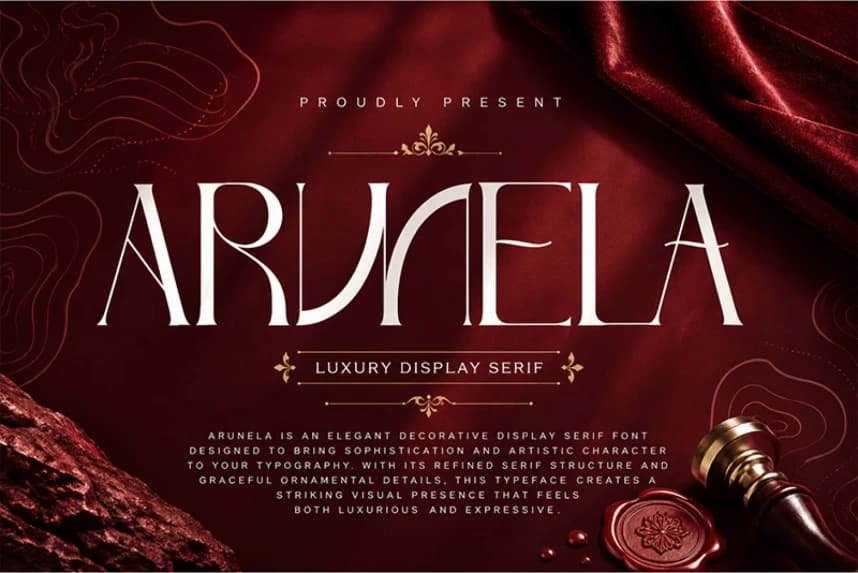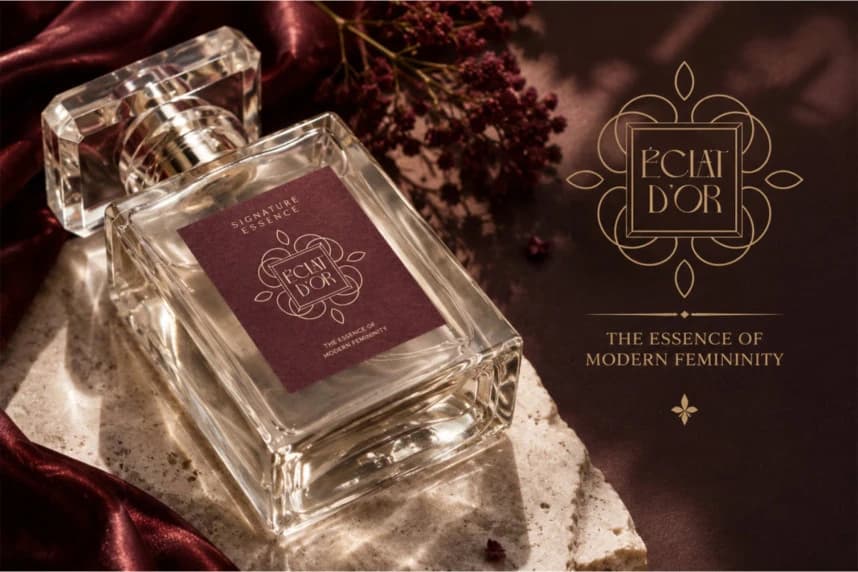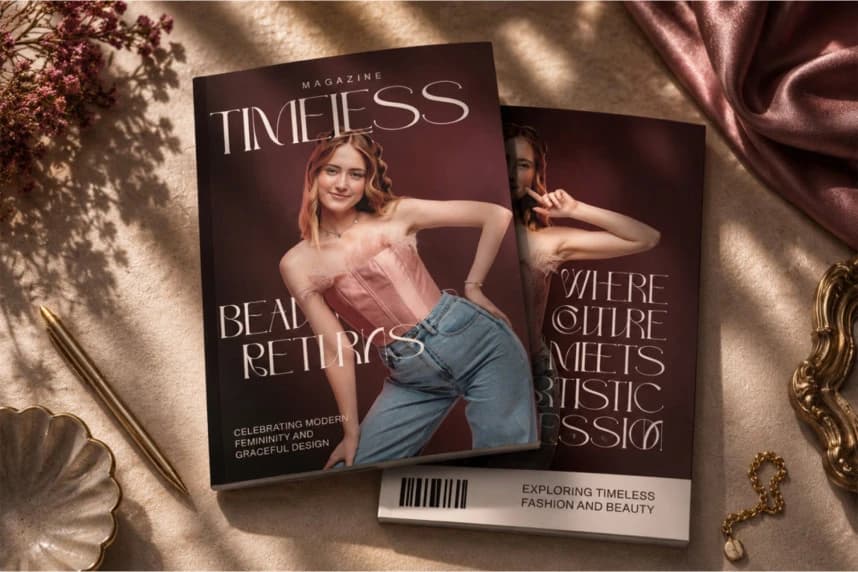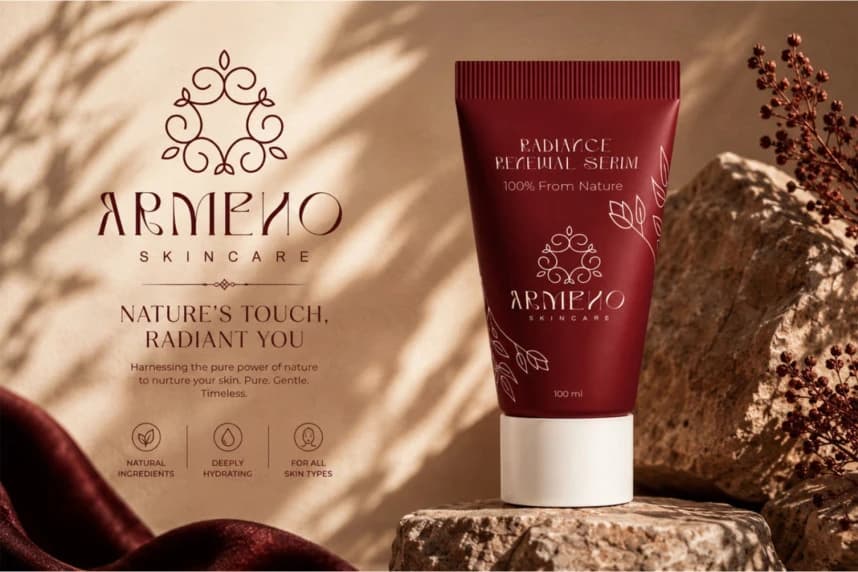
Arunela Font
Arunela Font is an elegant luxury display serif designed to bring sophistication, clarity, and artistic character into modern typography. With its refined